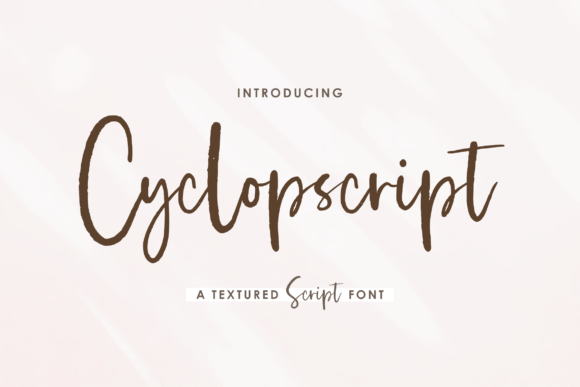
Journey into the realm of creativity and expression with Cyclopscript, the remarkable textured script font that captivates hearts and ignites imaginations. This captivating font family, meticulously crafted by allouse.studio, is a symphony of style and charm, ready to elevate your designs to new heights.
Unleash the power of Cyclopscript to bring life to your product packaging, unleashing a visual symphony that captivates customers and leaves a lasting impression. Its intricate textures and elegant curves lend a touch of sophistication and uniqueness, making your brand stand out from the crowd.
Dive into the world of branding projects with Cyclopscript, a font that dances with creativity. Whether you're crafting logos, designing business cards, or creating social media graphics, Cyclopscript weaves its magic, transforming ordinary words into enchanting expressions.
Harness the allure of Cyclopscript for your magazine designs, capturing readers' attention with headlines that dance across the page. Its distinctive style adds a touch of intrigue, inviting readers to explore the depths of your stories and articles.
Embark on a romantic journey with Cyclopscript, the font that adds a touch of elegance and charm to wedding invitations and save-the-dates. Its flowing lines and graceful loops intertwine to create a visual masterpiece that reflects the joy and love of this special occasion.
With Cyclopscript, the possibilities are boundless. Its versatility knows no limits, allowing you to express your creativity in countless ways. From artistic typography to eye-catching social media posts, Cyclopscript transforms your words into works of art.